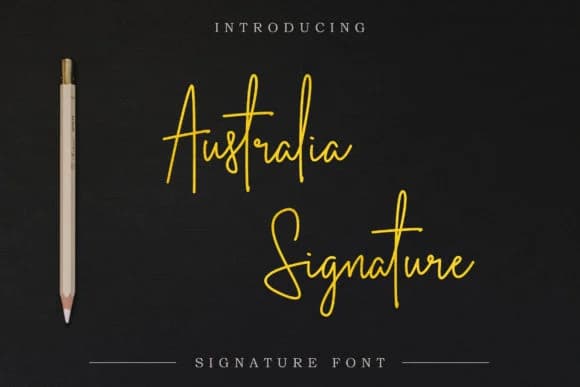
1 / 9About Australia Font
Australia by Cherryline Master is a bold handwritten script with genuine character and strong visual presence. The font channels authentic warmth through its unpolished, confident letterforms, making it ideal for wedding invitation suites where personality needs to shine through. Its expressive strokes work equally well on custom product labels, artisanal packaging design, personalized greeting cards, and boutique cosmetics branding where a human touch matters far more than mechanical precision.
The script's character comes through in how it captures the energy of real handwriting without trying to clean it up or make it overly polished. This makes it naturally suited for cafe menu design, handmade shop signage, and creative branding projects that need visual presence without pretension. The weight and rhythm of each letter have enough command to work at any scale, whether you're laying out small labels or designing large window displays, and the genuine feel never reads as affected or forced. Use it when you want viewers to sense someone's actual hand in the work, not a computer's default settings.
Australia Font is a script font that shines as a display or heading face. Pair it with a clean sans-serif or serif font for body text β the contrast creates a clear hierarchy while the two styles stay balanced and easy to read.